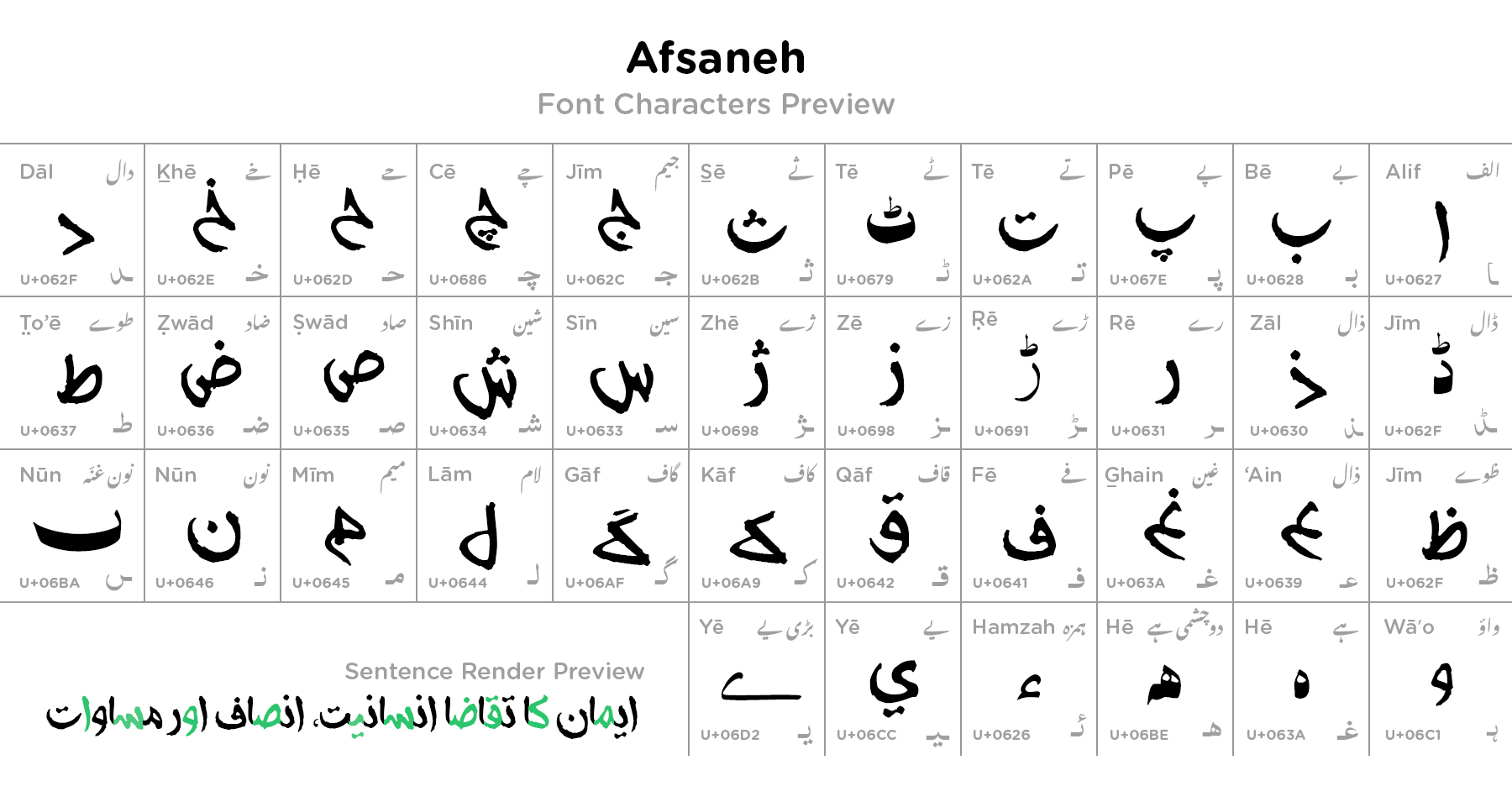
Afsaneh
Afsaneh is a Persian font based on Nastaliq script designed specifically for the Persian language. It was designed by an Iranian designer Hossein Taghizadeh and is available for everyone to use. The word Afsaneh means “a fairy tale” which has Persian origin. As the name suggests, it can be used to write imaginative stories and tales, specifically for children’s books. It is a regular font type with an untidy look of a paintbrush. It has lovely flowing lettering, soft curves, and a beautiful blend of old and modern design elements. The Nastaliq script, which has been used for thousands of years to write Arabic, Persian, and other languages, can be found in it. Moreover, it has a large character set and 353 glyphs to cover both Urdu and Arabic characters and symbols. It can used to write plain body text or to make attractive headings.